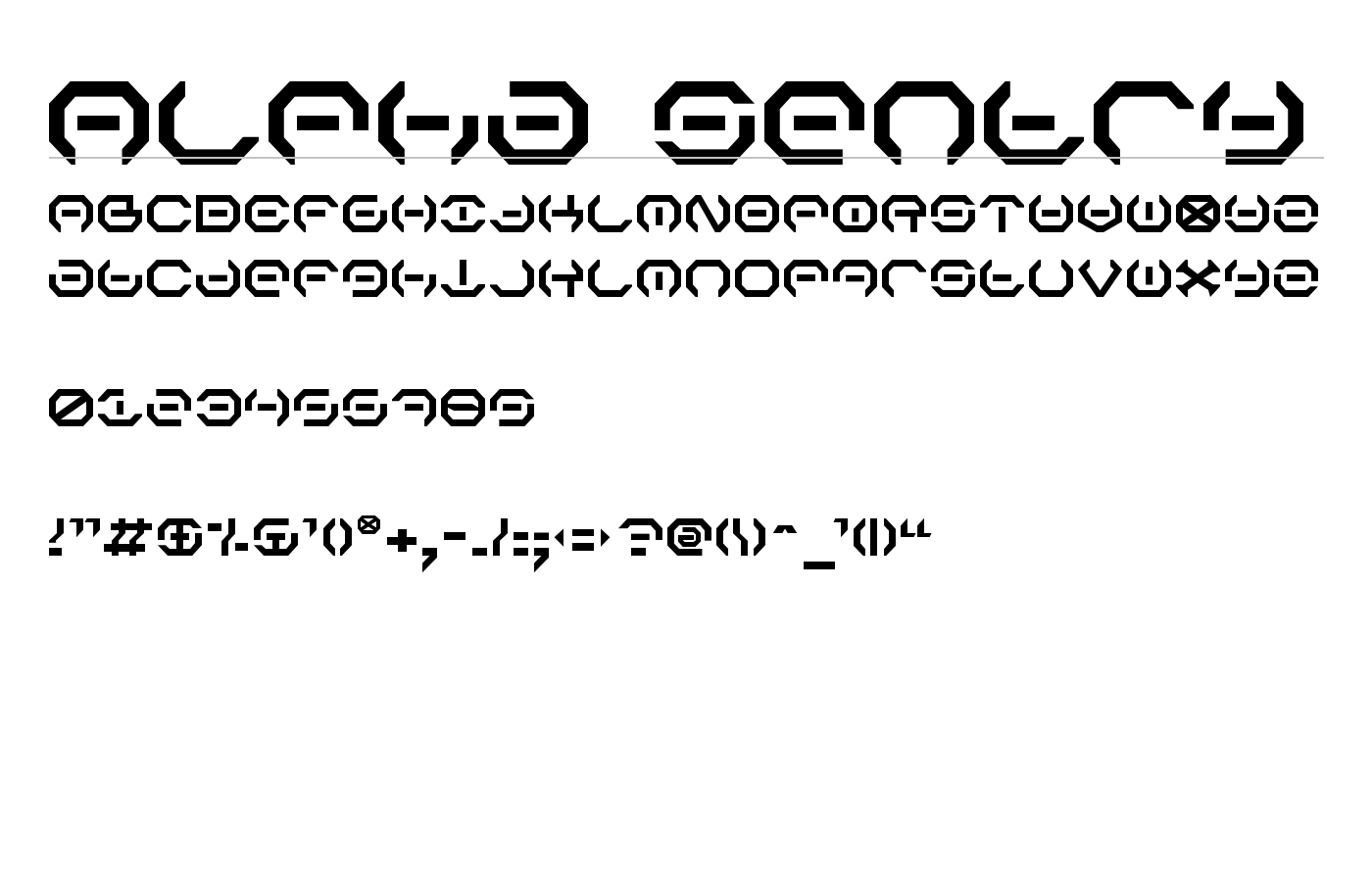
Alpha Sentry is a bold, geometric sans serif font with a futuristic and tech-inspired design. Its blocky, angular letterforms feature consistent weight and sharp edges, giving it a strong, modern presence perfect for headlines, logos, or digital projects that want to convey innovation and strength. This font works especially well in contexts where a distinctive, cutting-edge style is needed to grab attention and emphasize a high-tech or sci-fi aesthetic.
Alpha Sentry Font
About Alpha Sentry Font